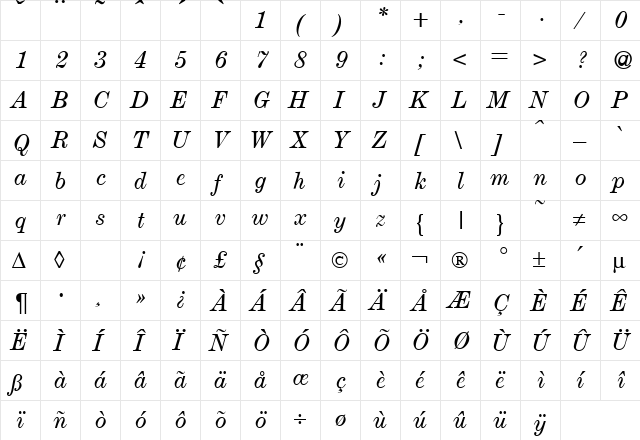
Modesto RegularItalic
Design Context for Modesto Typeface
Modesto takes a measured approach to typography — its balanced proportions and neutral character make it a reliable workhorse for both digital and print work. The slanted form adds forward momentum and visual energy.
Pro Tip: Try Modesto for annotation and caption copy alongside an upright companion — the contrast in angle creates a dynamic but ordered typographic system.